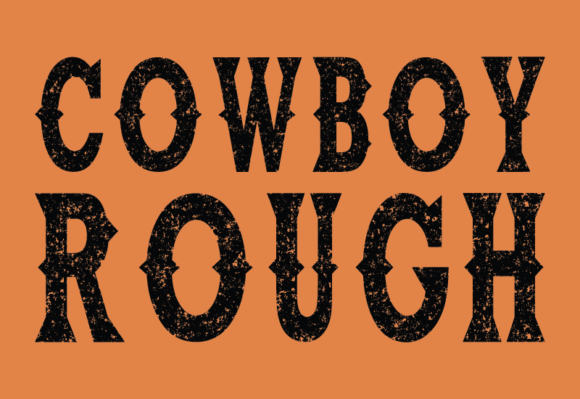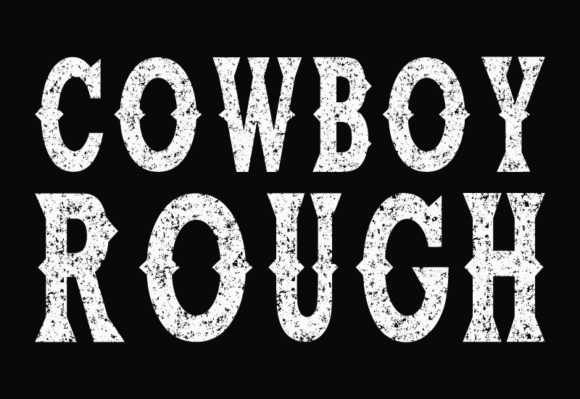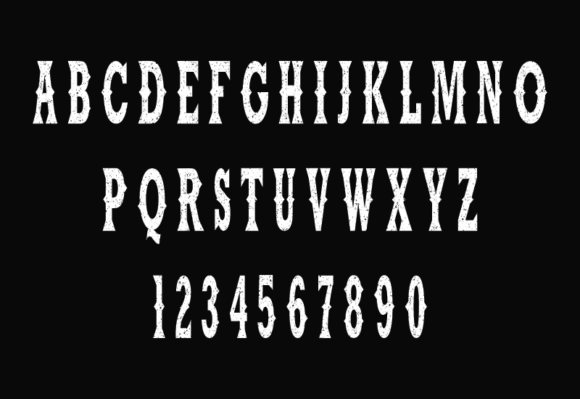
Cowboy Rough Font
About the Cowboy Rough Font
Presenting Cowboy Rough Font, a unique and stylish typeface that will make your work stand out. Cowboy Rough is a simple Western-style serif font designed for a clean retro look. With its vintage balanced proportions, this font is perfect for creating a minimalist aesthetic in logos, web design, and branding. You can use this font in any Western-style project proudly.
Cowboy Rough’s strong, yet readable serifs make it ideal for headlines, short paragraphs, and logos requiring a touch of vintage Western charm. It excels in branding projects for whiskey distilleries, steak houses, or clothing lines targeting a rugged, classic aesthetic. Avoid using it for large blocks of body text or user interfaces where legibility at smaller sizes is crucial.
Its inherent boldness is balanced by a clean simplicity, making it versatile. Pair it with a clean sans-serif like Montserrat for a modern contrast or a playful script font such as Pacifico to enhance its retro feel. For a more sophisticated look, consider pairing it with a geometric sans-serif like Futura.
The overall personality is confident and understated; it projects a sense of rugged reliability without being overly aggressive.
Cowboy Rough Font Usage Examples
Cowboy Rough Font Example